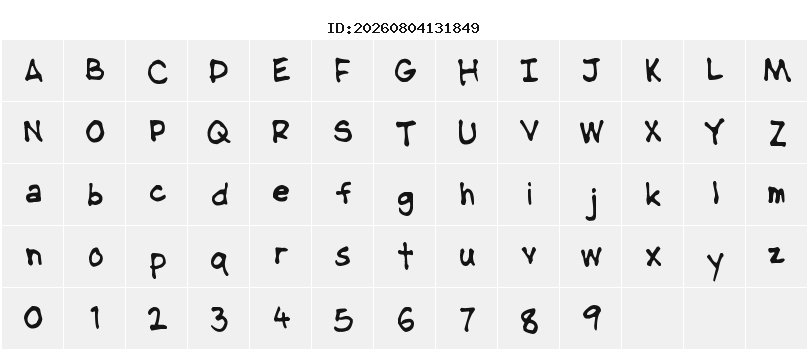
About NipCen's Handwriting Regular.ttf
NipCen's Handwriting Regular.ttf is a modern, elegant sans-serif font designed for ultimate readability and visual harmony. Perfect for branding, headlines, web design, and print materials.